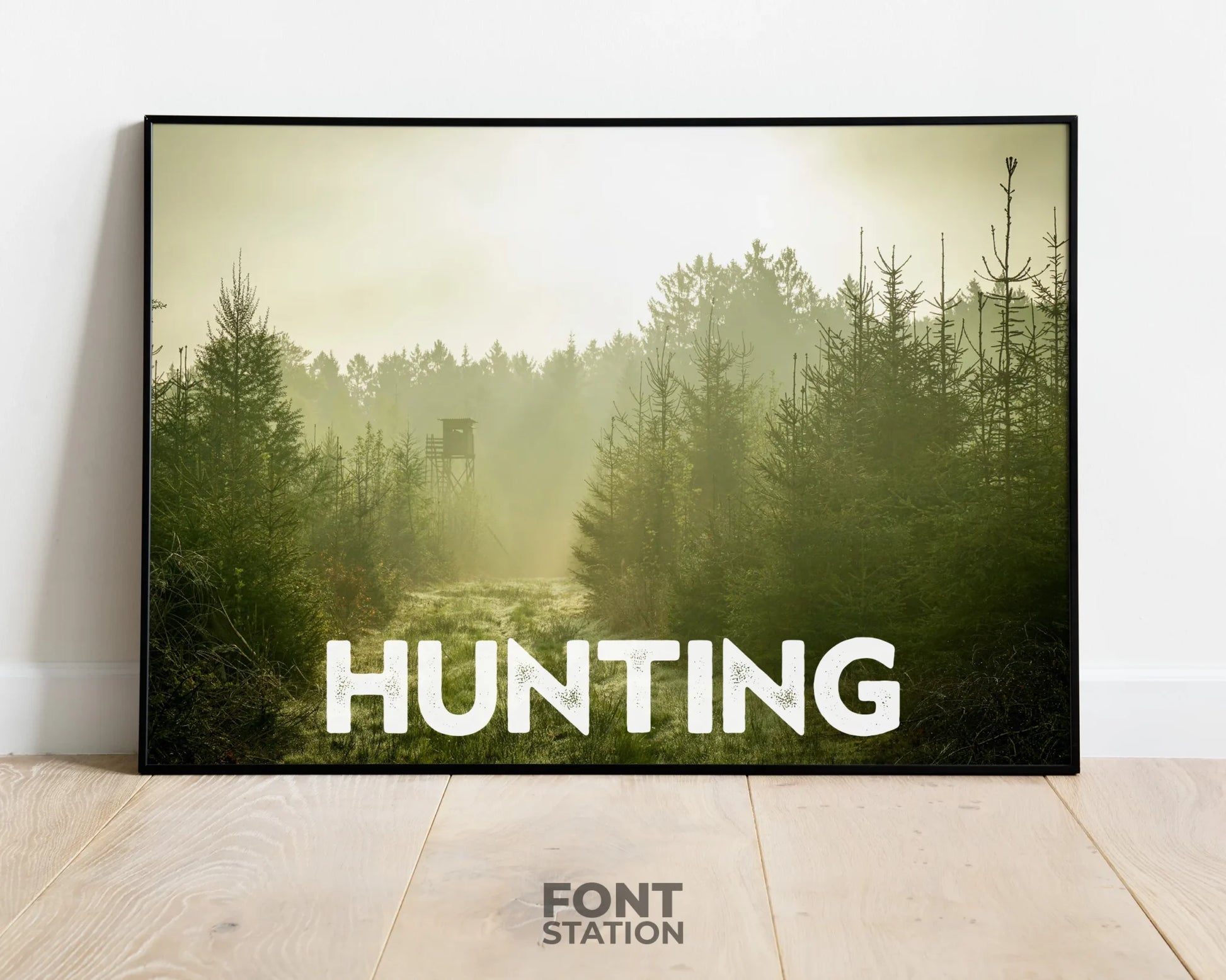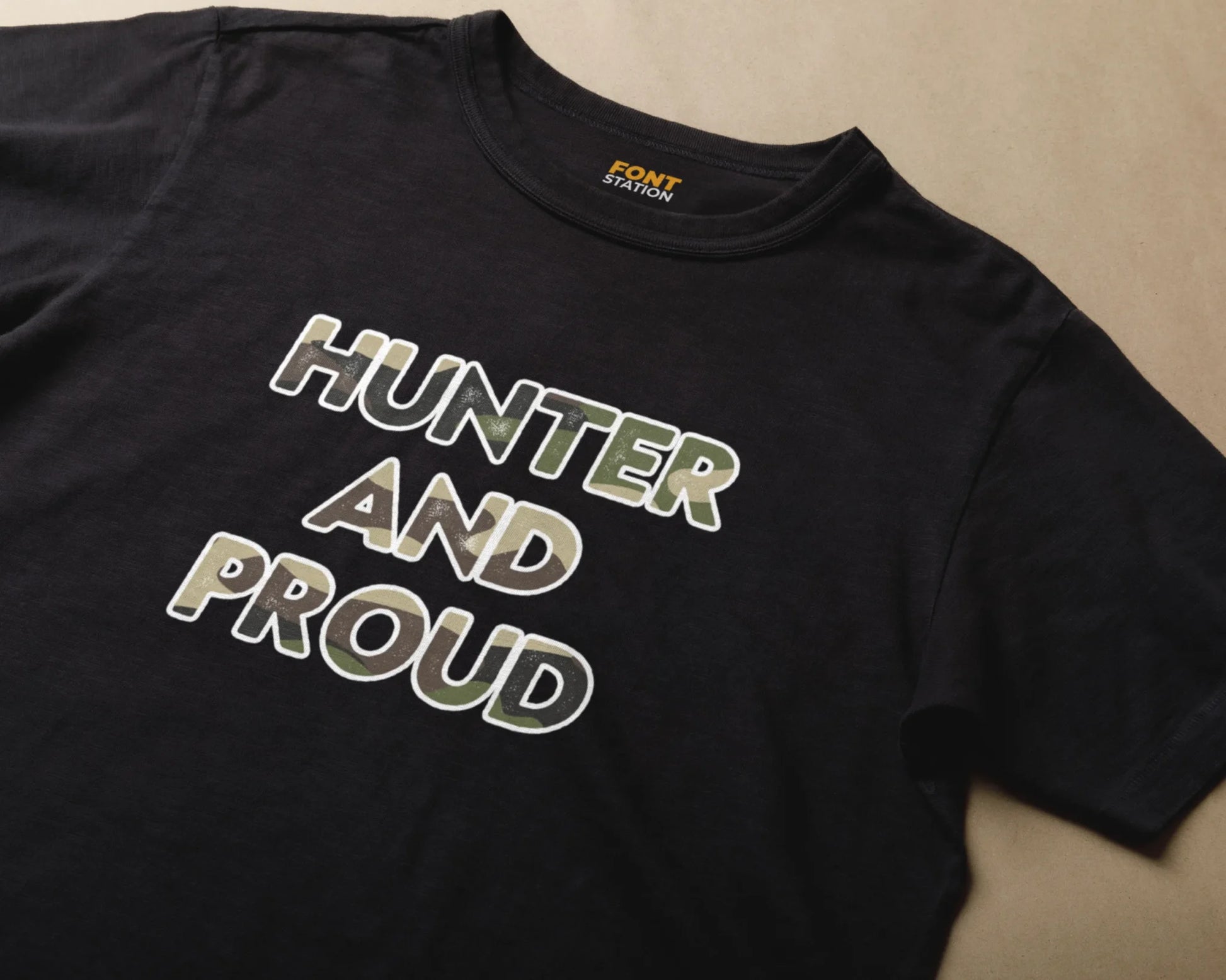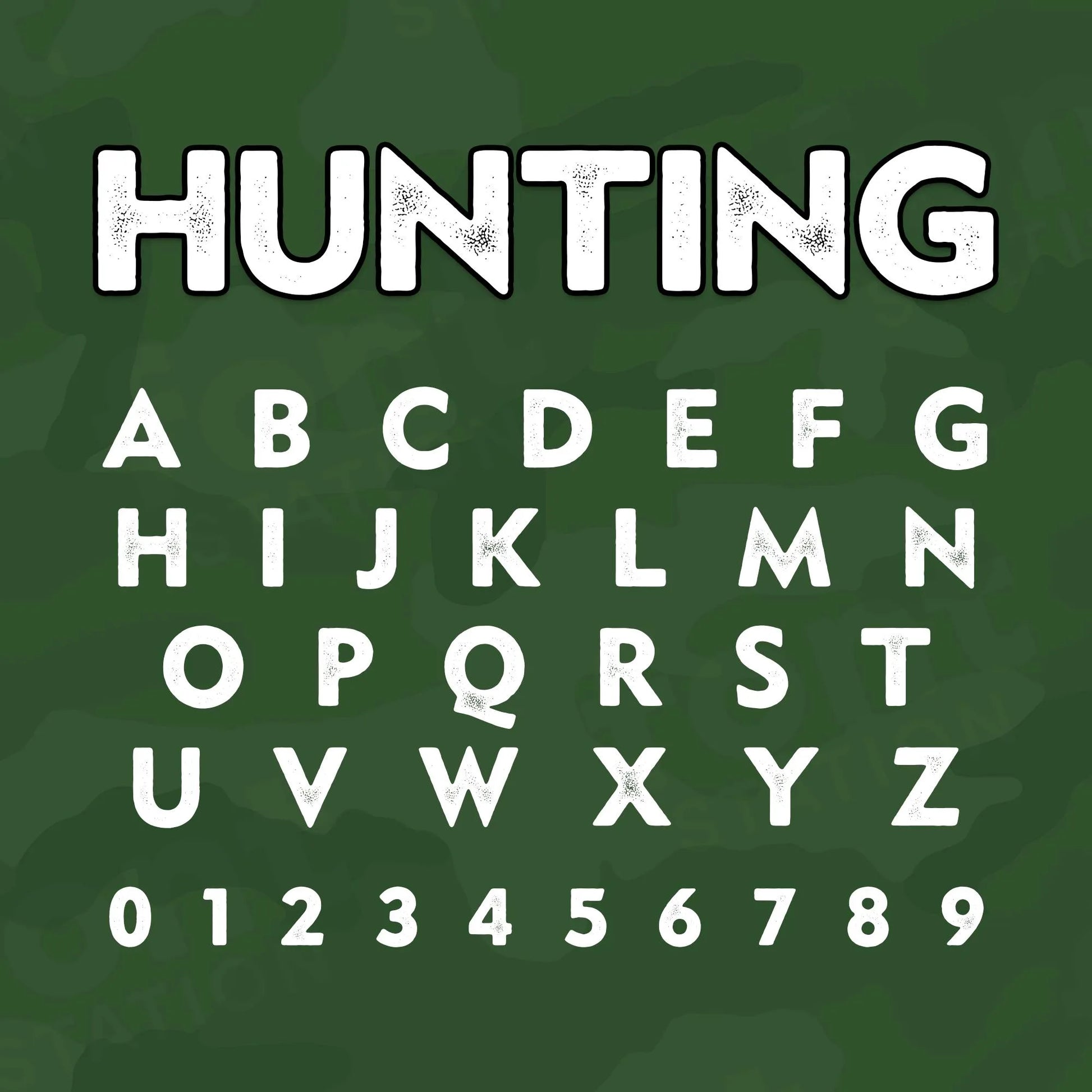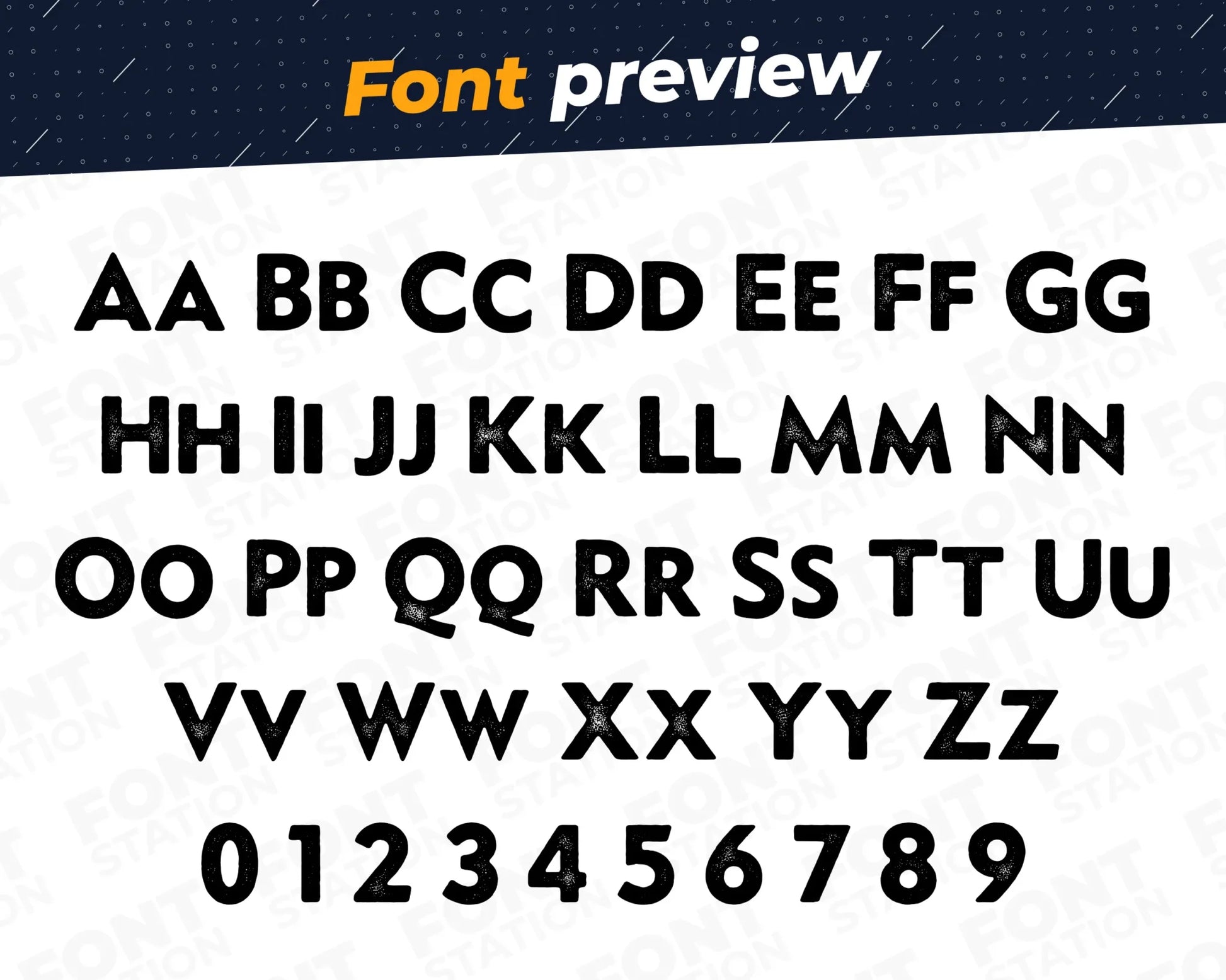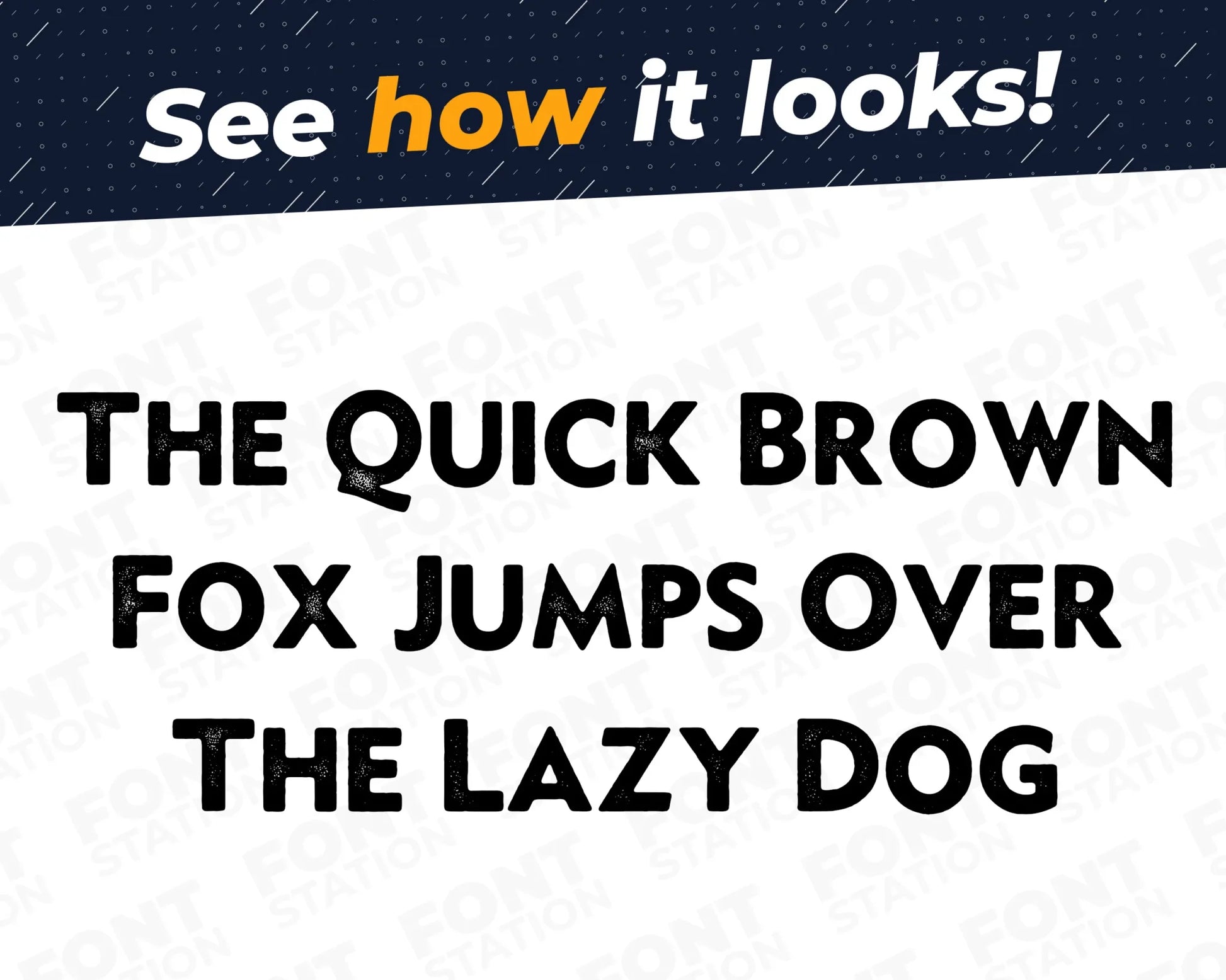
Hunting Distressed Font
Our Hunting Distressed typeface, inspired from Outdoor Camo font
Grab your computer, tablet or other device and start creating right now with our Outdoor Camo font letters! Our Hunting Distressed typography is inspired from Outdoor Camo font, making it ideal for various digital creations (logo, word...), sublimation, cake toppers, stickers, event decorations, and more.